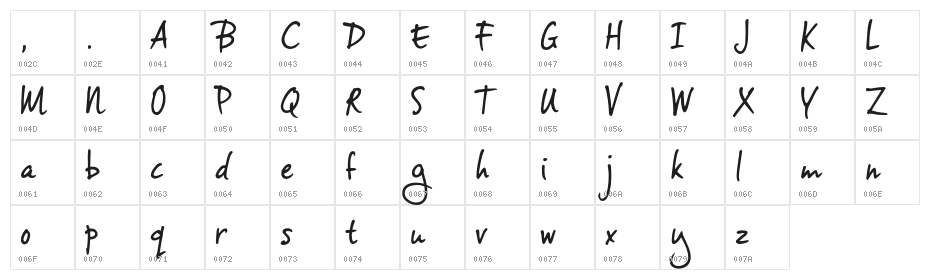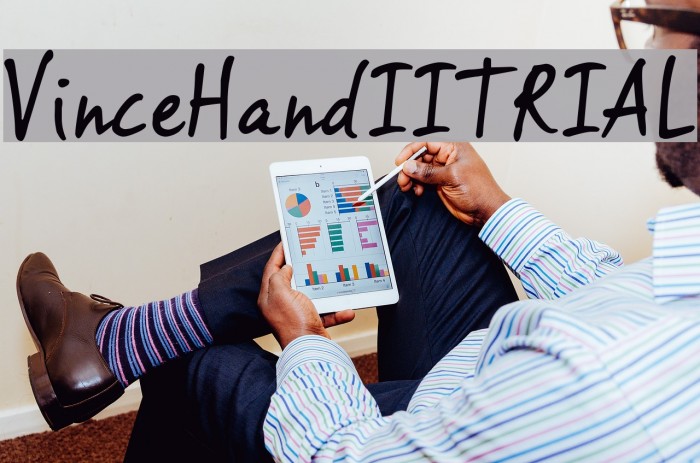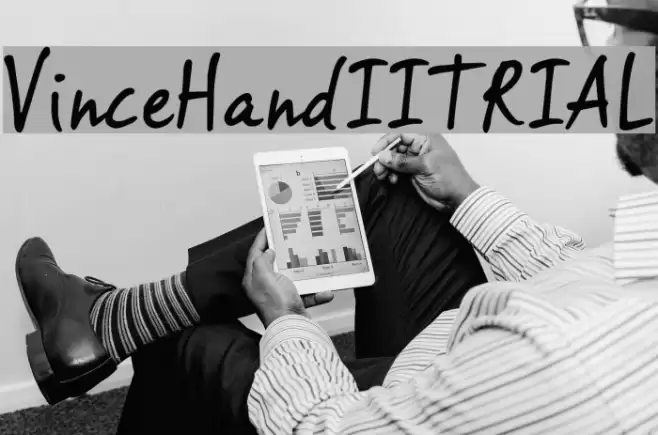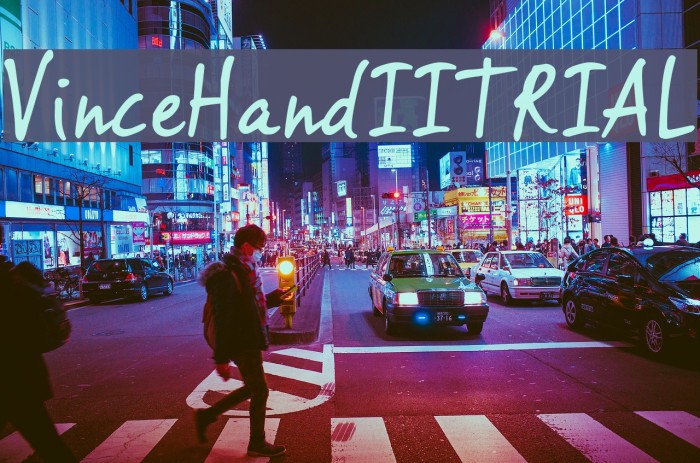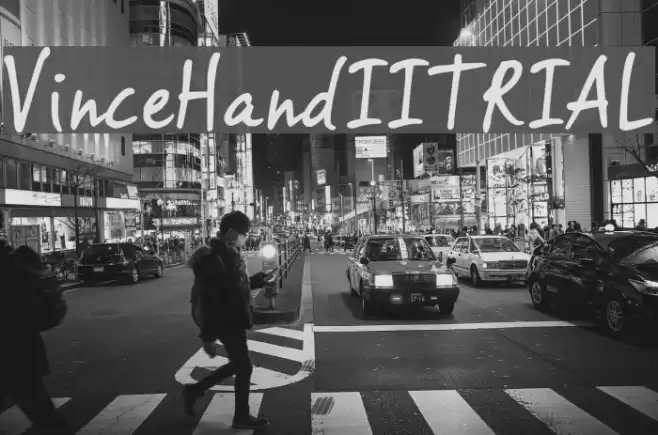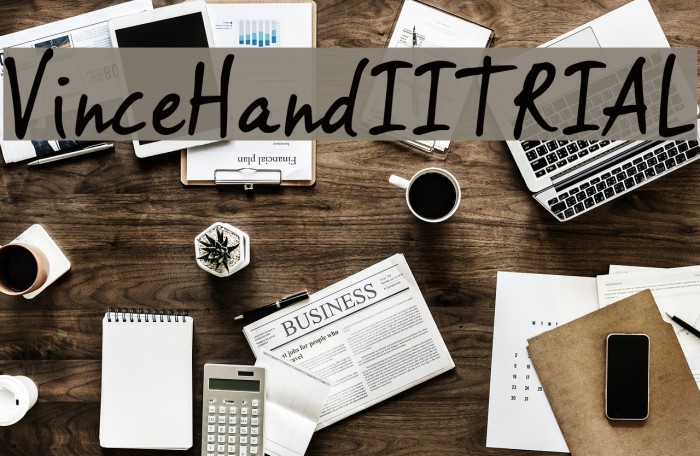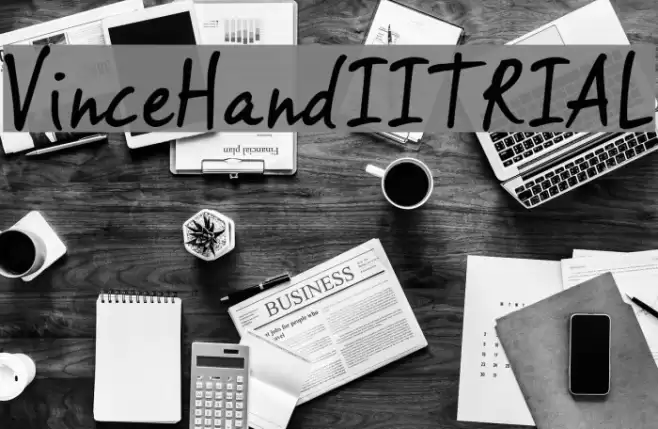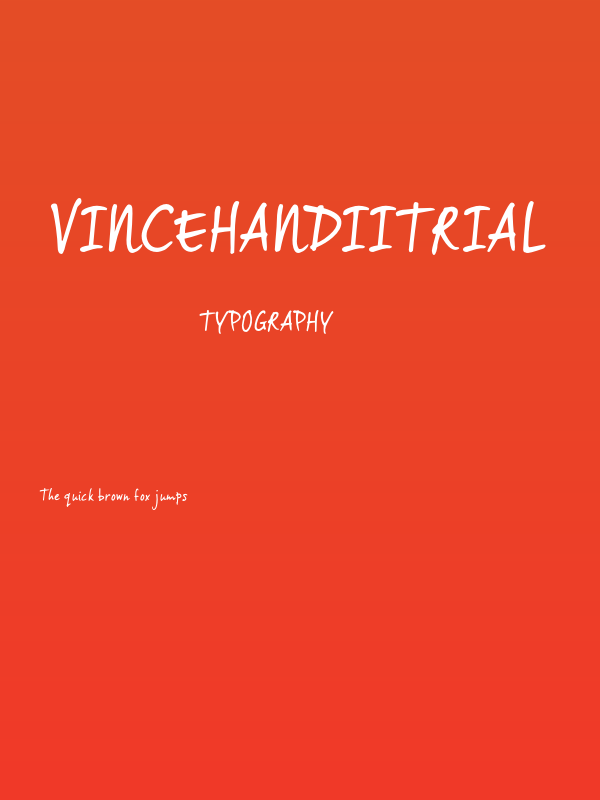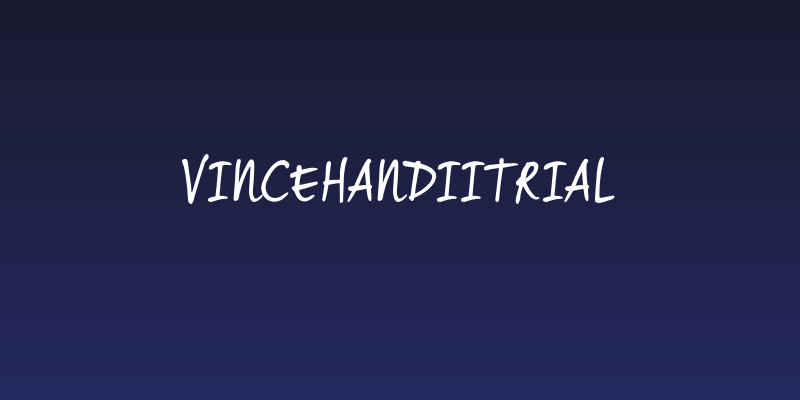
VinceHandIITRIAL Font
VinceHandIITRIAL Description
This font exudes a casual and informal style, reminiscent of handwritten notes with a personal touch. The letters are slightly slanted, giving a dynamic and lively appearance. The strokes vary in thickness, adding a natural and organic feel. The uppercase letters maintain a consistent height, while the lowercase letters have a playful, free-flowing form. The overall look is approachable and friendly, making it suitable for projects that require a personal or creative flair. The spacing between characters is balanced, ensuring readability while maintaining the handwritten aesthetic.
| Overall Style | Casual, Informal |
| Proposed Projects | Ideal for personal invitations, greeting cards, creative branding, and informal communication. |